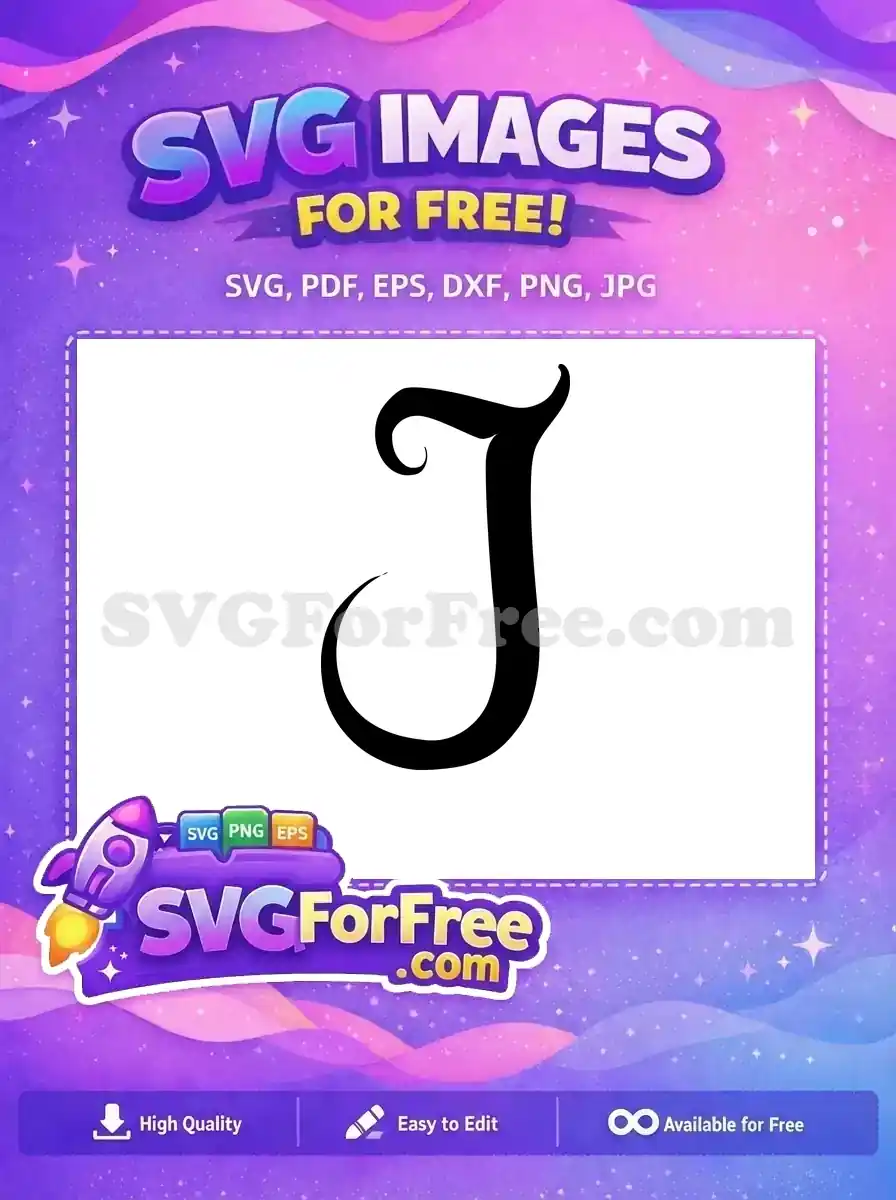
Free Swirly Font Free Black Letter J Initial Free SVG – Instant Download
Elegant J with a tight curl, a free vector resource.
Free Swirly Font Free Black Letter J Initial Free SVG